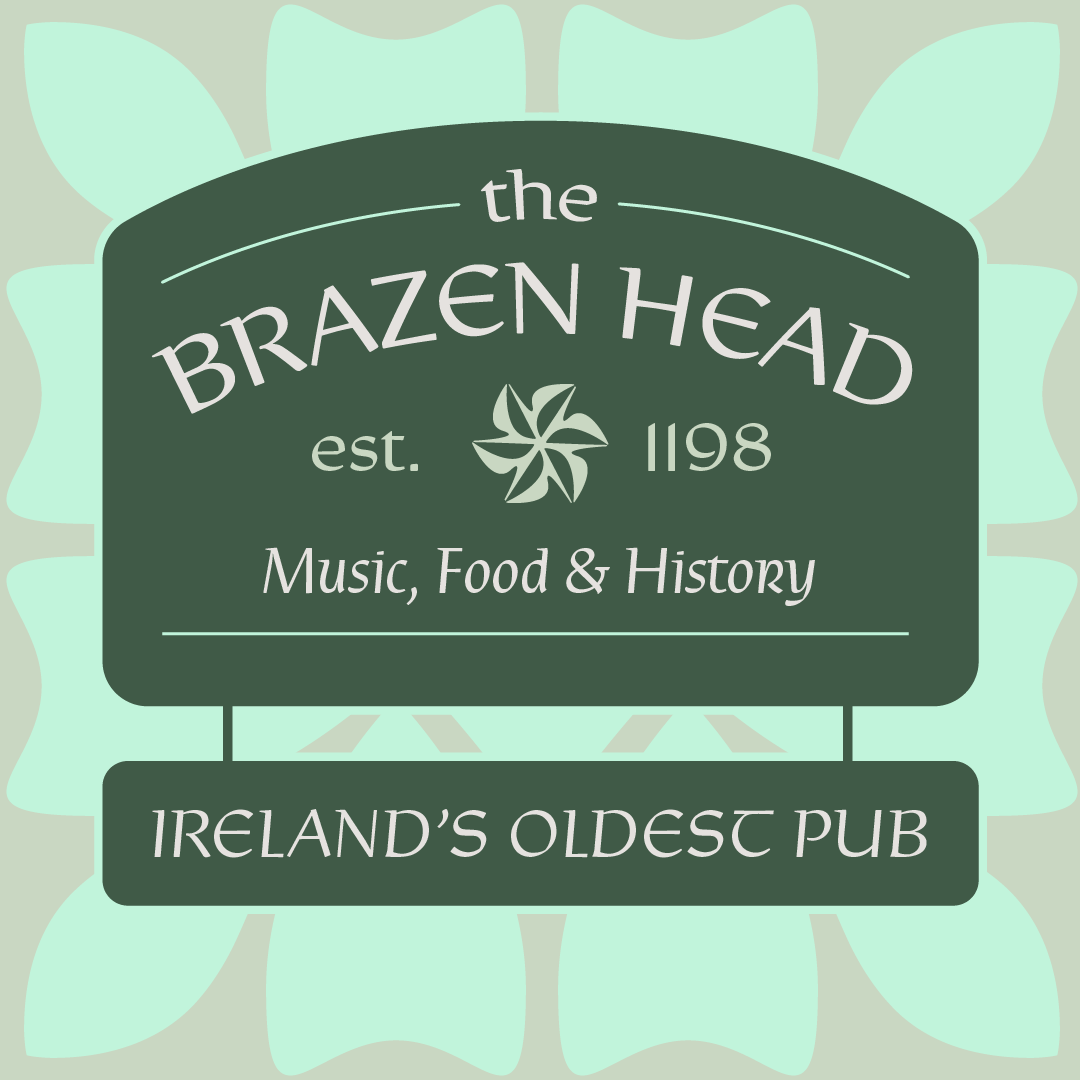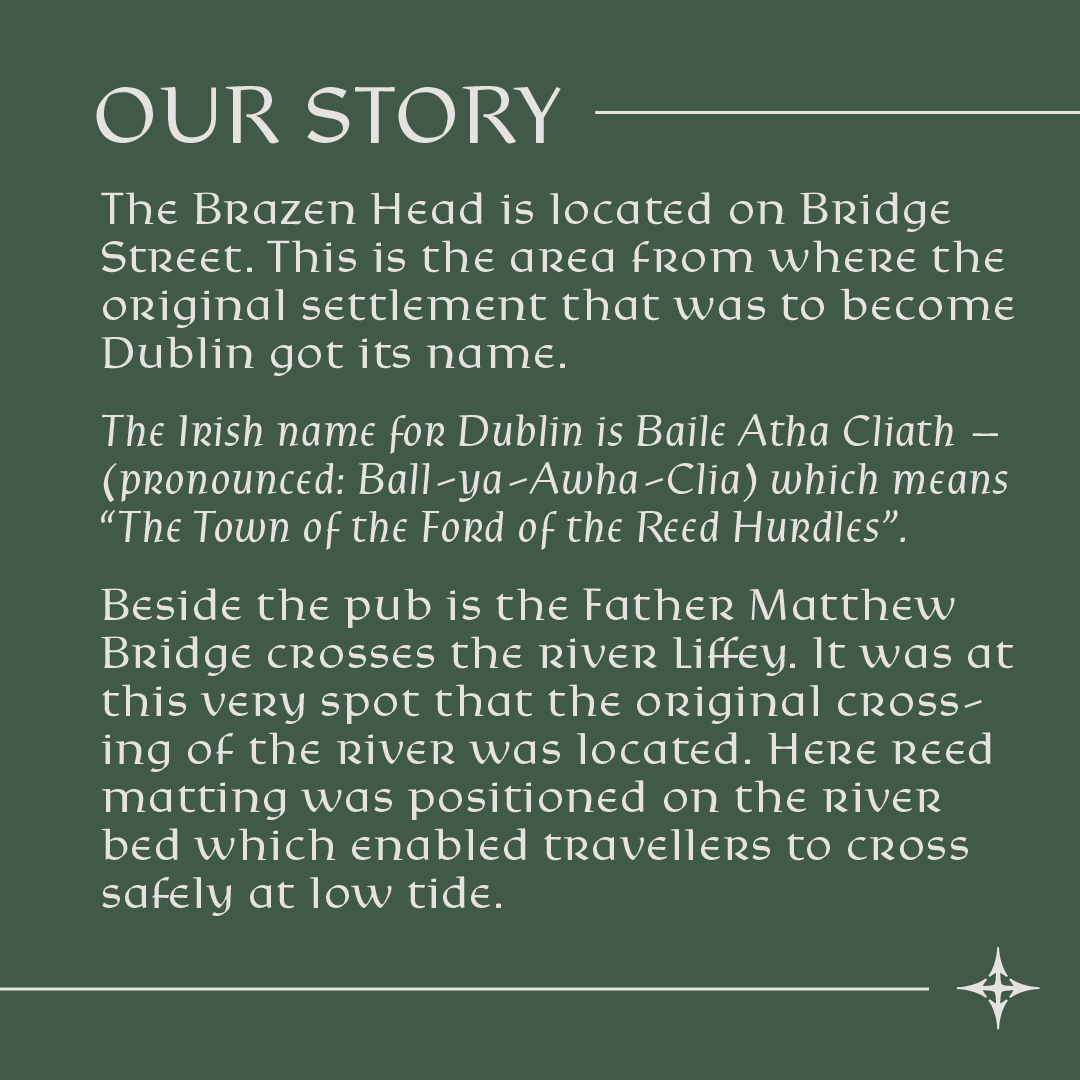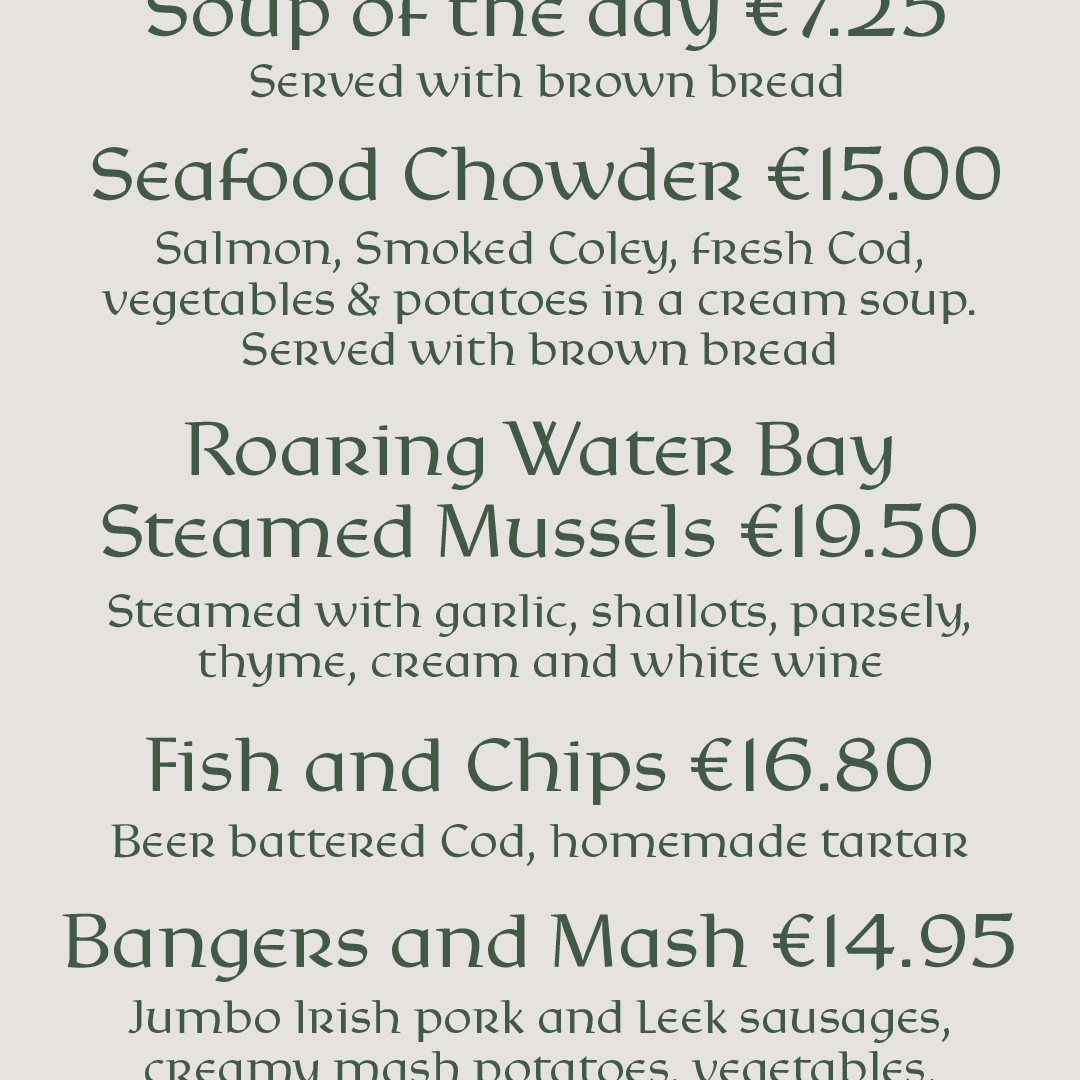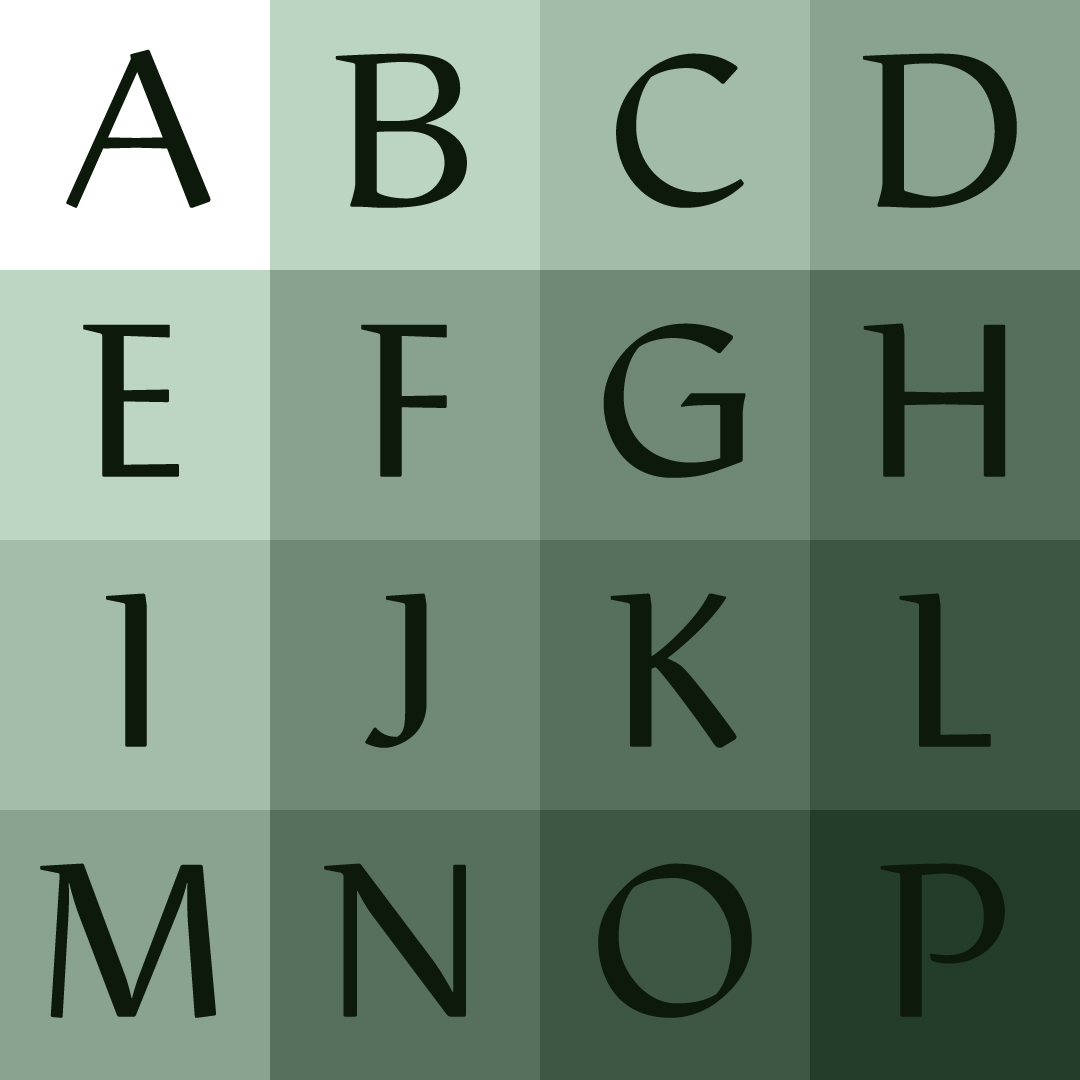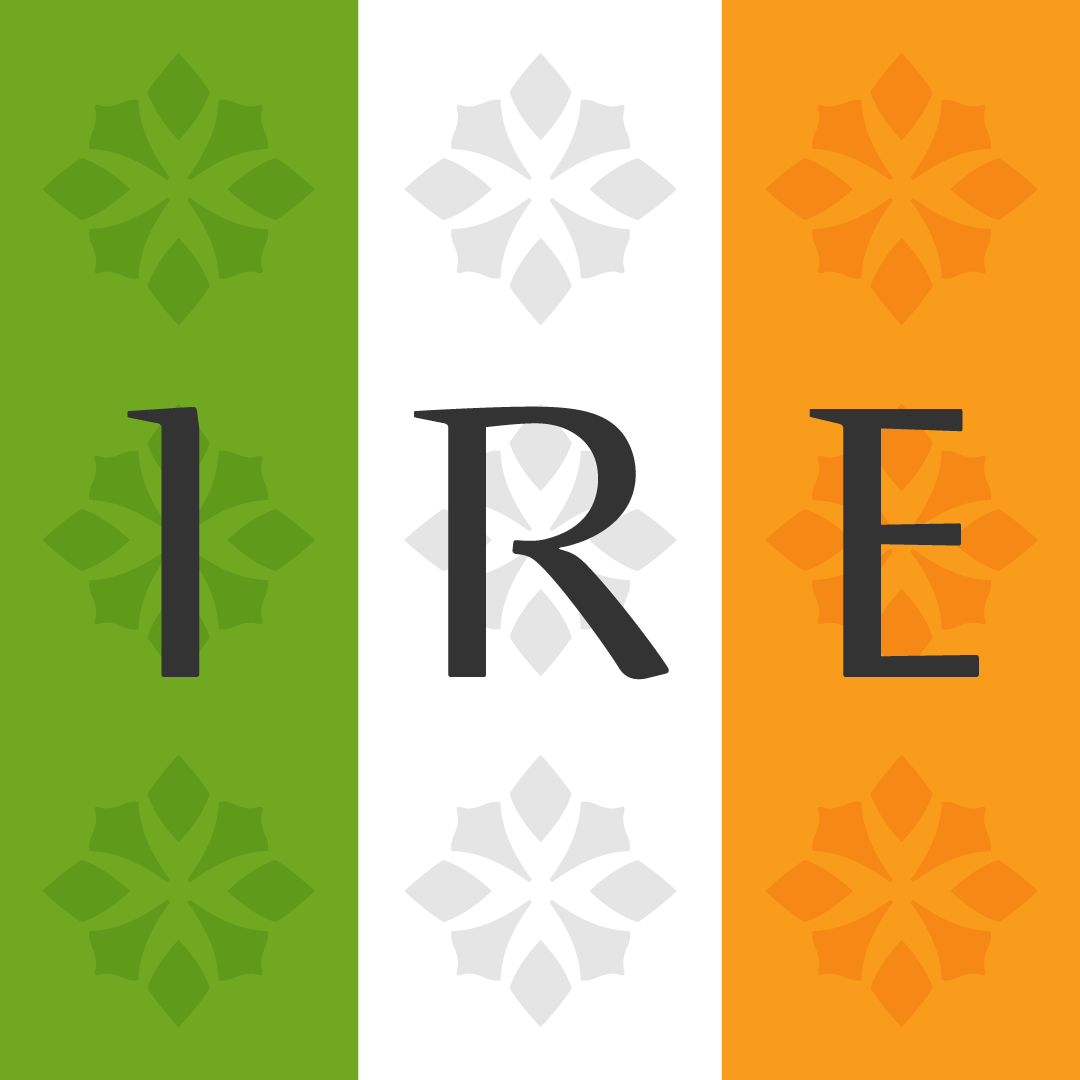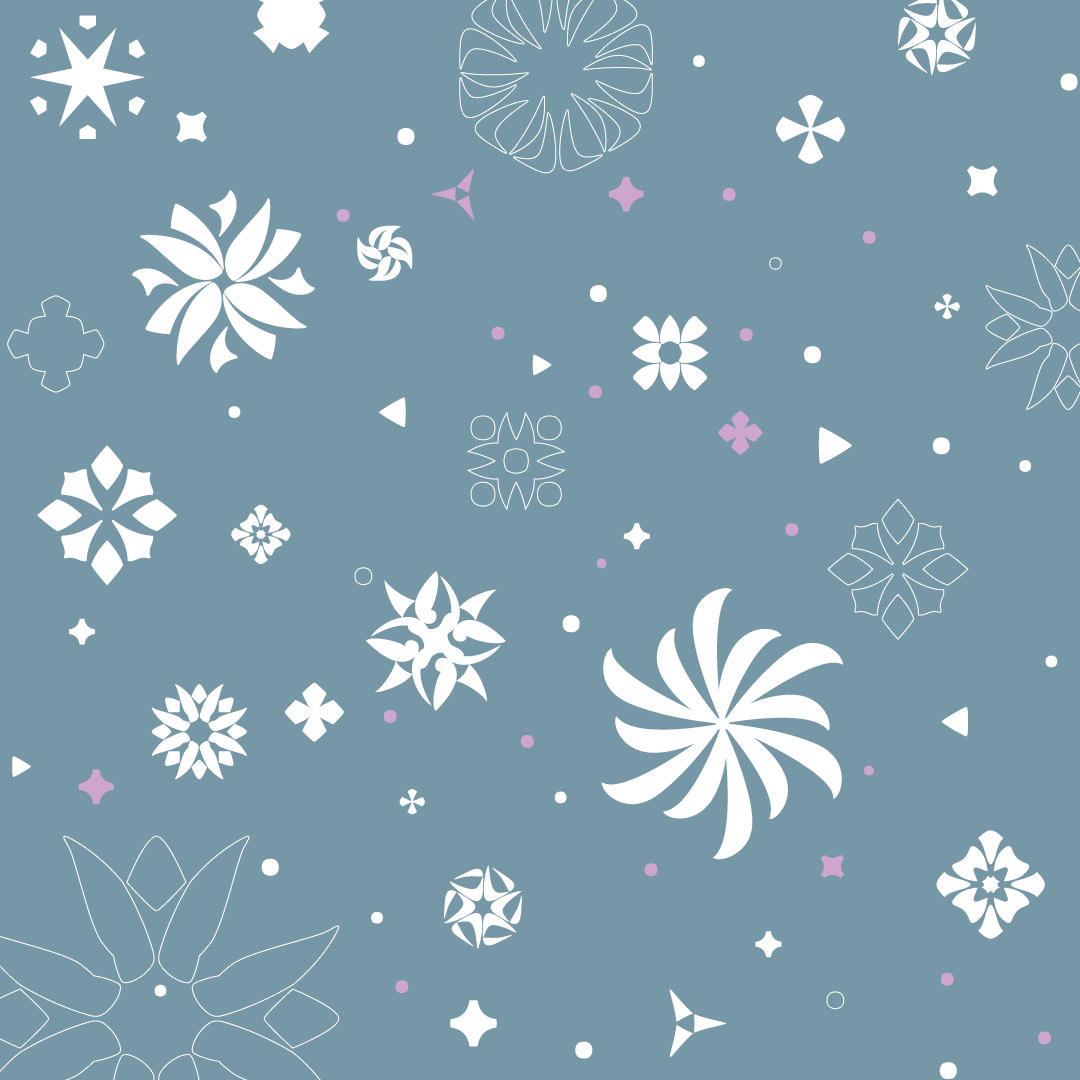
Rieven™
An innovative Uncial type family.
Designed by Steven Skaggs
Rieven comes in two styles:
Rieven Roman
Rieven Uncial
Story
Designer Steven Skaggs wanted a versatile uncial typeface that was not simply decorative. Traditionally, a true uncial is a majuscule form, entirely lacking in ascenders and descenders. However, by designing Rieven Uncial, Skaggs found a way to use the true uncial as inspiration but retained a lowercase look and feel.
Typically, uncials do not have italic forms but in order for Rieven to be a truly versatile face, it was imperative that it should be accompanied by an italic. The italic form owes much to the historical roots in the letra antigua cursiva of the 15th century humanist masters.
Rieven Roman
In order to address instances where the more familiar style of letterforms are preferred over uncials, Steven Skaggs expanded the Rieven family by creating Rieven Roman version which can be used hand-in-hand with Rieven Uncial. Rieven Roman and the accompanying italic are variants derived from Rieven Uncial and in fact share many glyphs in common.
The accompanying italic works perfectly well with its Roman counterpart, despite being structurally quite distinct from it. Virtually all traces of the uncial forms are removed in the lowercase. Sufficient differentiation between the italic and upright forms of the Roman has been applied to achieve a balanced contrast in text settings, which allows for more efficient reading.
Rieven Ornaments
The Rieven family includes Rieven Ornaments, a font comprised of over 180 symbols, circled numbers, arrows, and decorative ornaments. A total of 333 languages are supported.
Rieven Uncial received a Certificate of Excellence in Type Design from the Type Directors Club in the 2010 TDC2 competition.